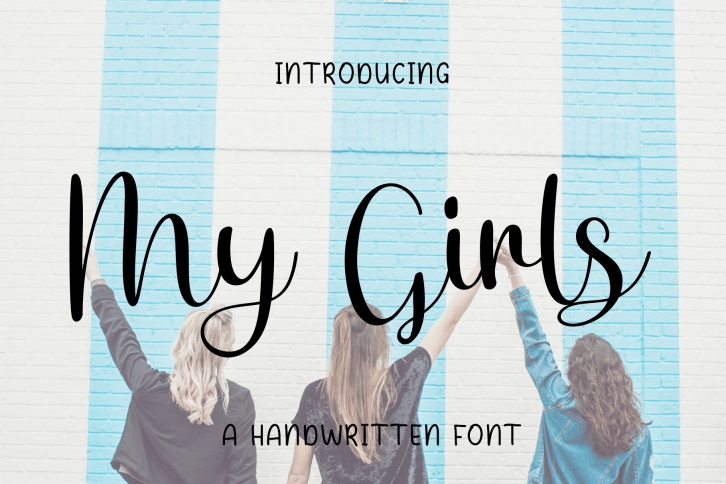
My Girls is a fun and friendly calligraphy font. Whether you’re using it for crafts, digital design, presentations, or making greeting cards, this font has the potential to become your favorite go-to font, no matter the occasion!